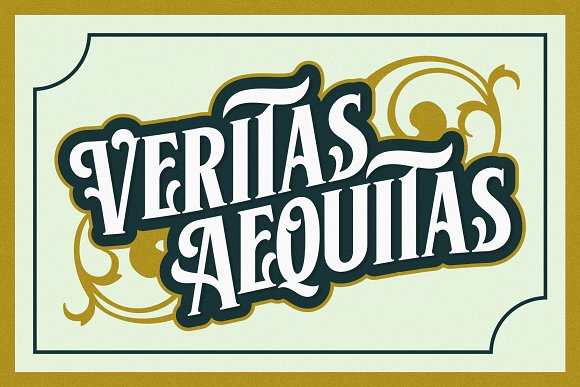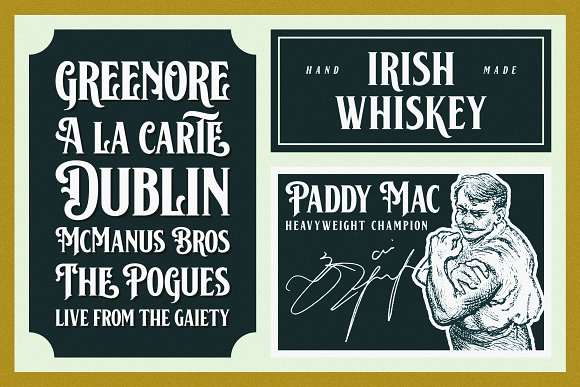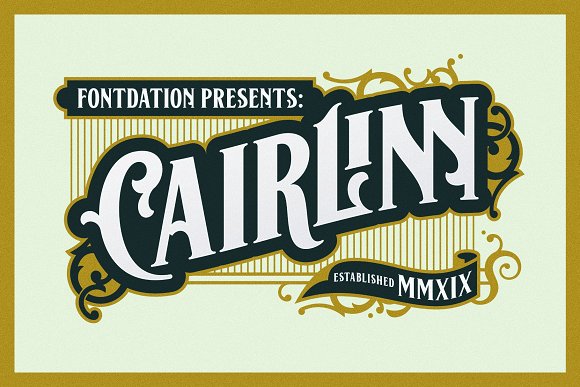
Cairlinn | Vintage Font
New year, new font. Let us introduce our first font on 2019; Cairlinn. A clean serif that are forged with spirit of vintage typography. Heavily inspired by the old letters that are used in classic advertisements. This 300+ glyphs monster is packed with wide variation of letters, accessible via OpenType features.
If you’re a fan of vintage/classic typography (like me), this font is a precious addition to your design arsenal. Suits best for any project that requires a vintage touch, such as: labels, t-shirt design, typographic quotes, packaging, wedding invitations, and many more. So what are you waiting for, go get this monster and start a rrriiiiiooott! XD